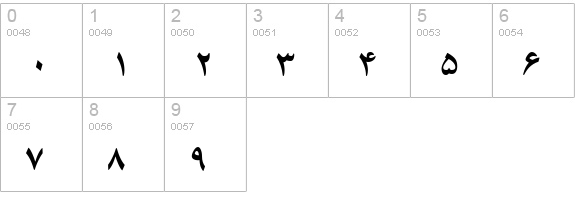
B Yagut Bold is a strong, high-contrast variant in the B typeface family \xE2\x80\x94 well suited to headlines, attention-grabbing titles, and strong calls-to-action.
B Yagut Bold font is a modern and stylish typeface that exudes confidence and sophistication. With its bold and impactful design, this font is perfect for making a statement in headlines, titles, and logos. The clean lines and sharp edges of B Yagut Bold give it a sleek and contemporary look that is sure to catch the eye. What's even better is that B Yagut Bold font is available for free download at FontsMarket.com. Yes, you read that right - you can get your hands on this striking font without spending a dime! Whether you're a designer looking to add a touch of flair to your projects or a content creator searching for the perfect font to make your text stand out, B Yagut Bold is the ideal choice. Don't miss out on the opportunity to enhance your designs with the bold and captivating B Yagut Bold font. Download it for free today and elevate your creative projects to new heights!